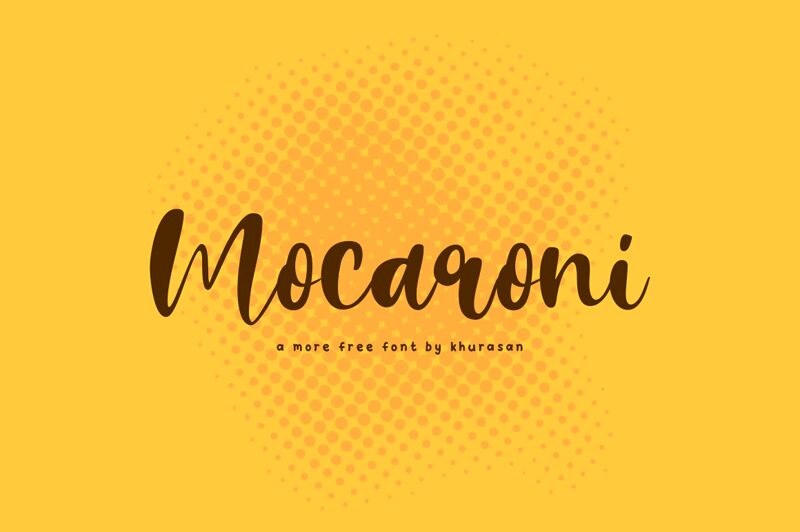
Mocaroni
Mocaroni by Khurasan is a dynamic typeface with smooth brush strokes that create a modern and playful feel. The semi-bold weight adds just the right amount of thickness to make your text stand out. This font is perfect for branding projects, social media graphics, and product packaging. Use it for food-related designs such as restaurant menus, recipe books, or food blogs to give your content a unique and appetizing look. Mocaroni also works well for fashion and beauty projects, creating an elegant yet approachable aesthetic. Make your design pop with Mocaroni's lively energy and style!